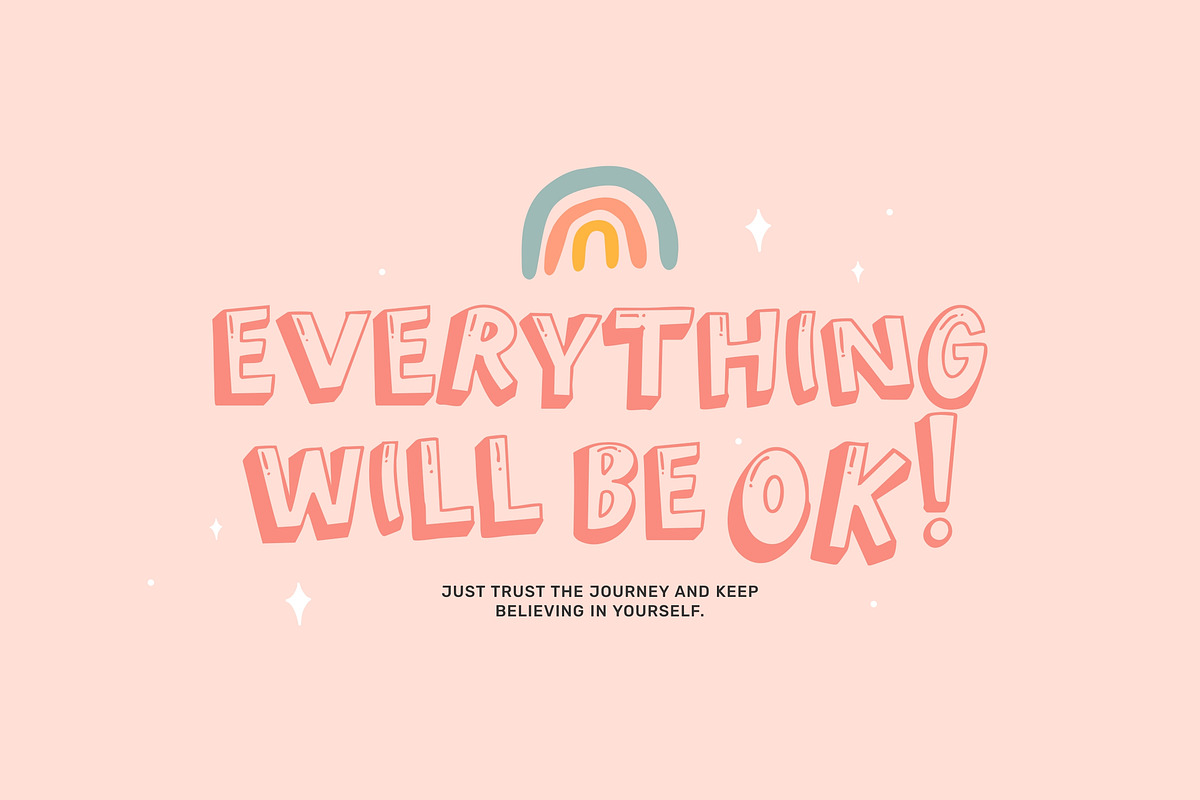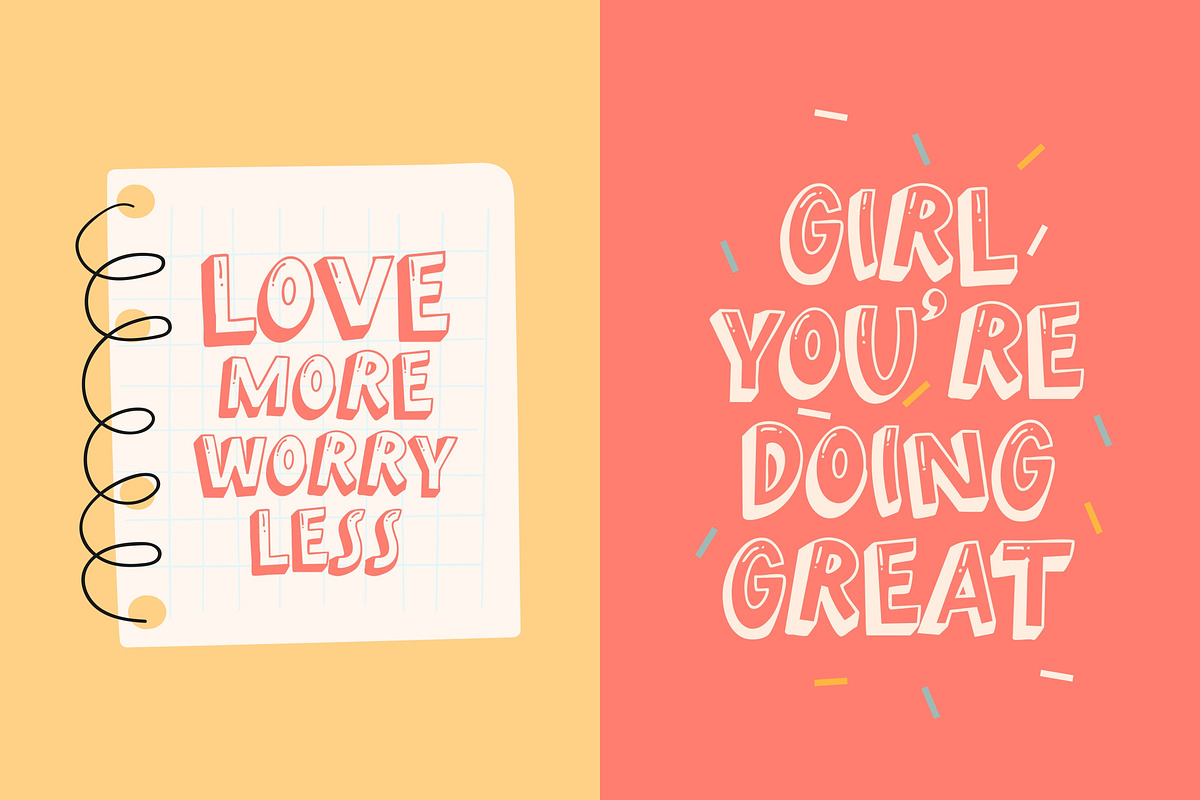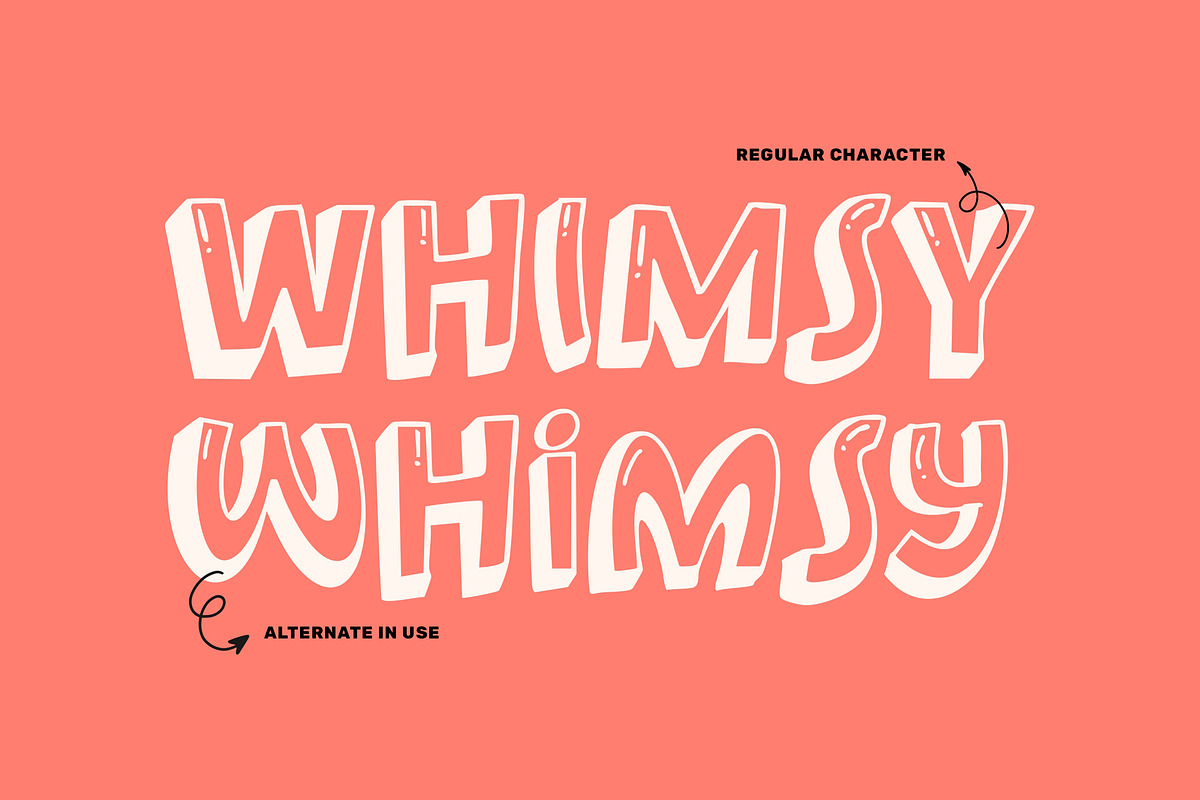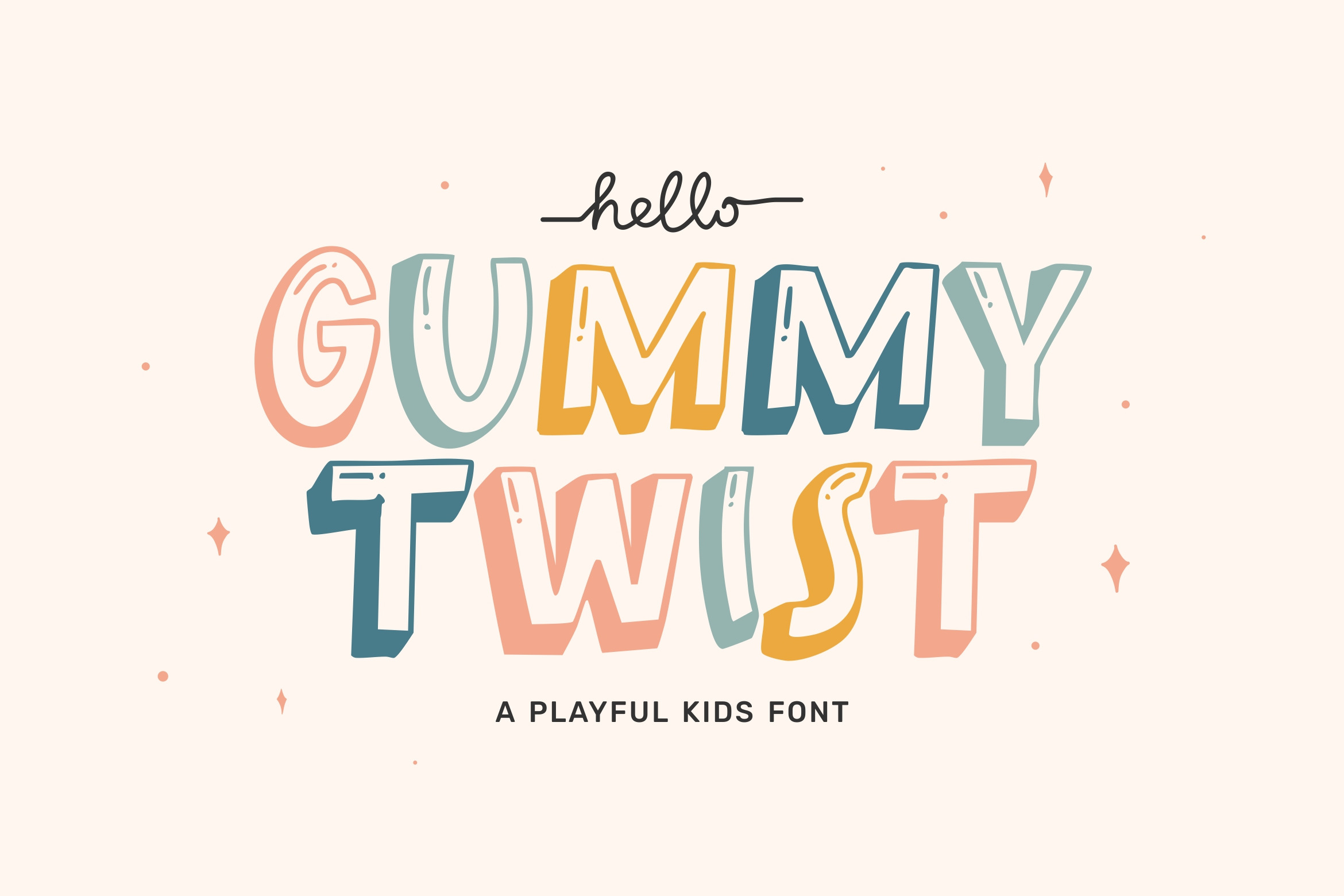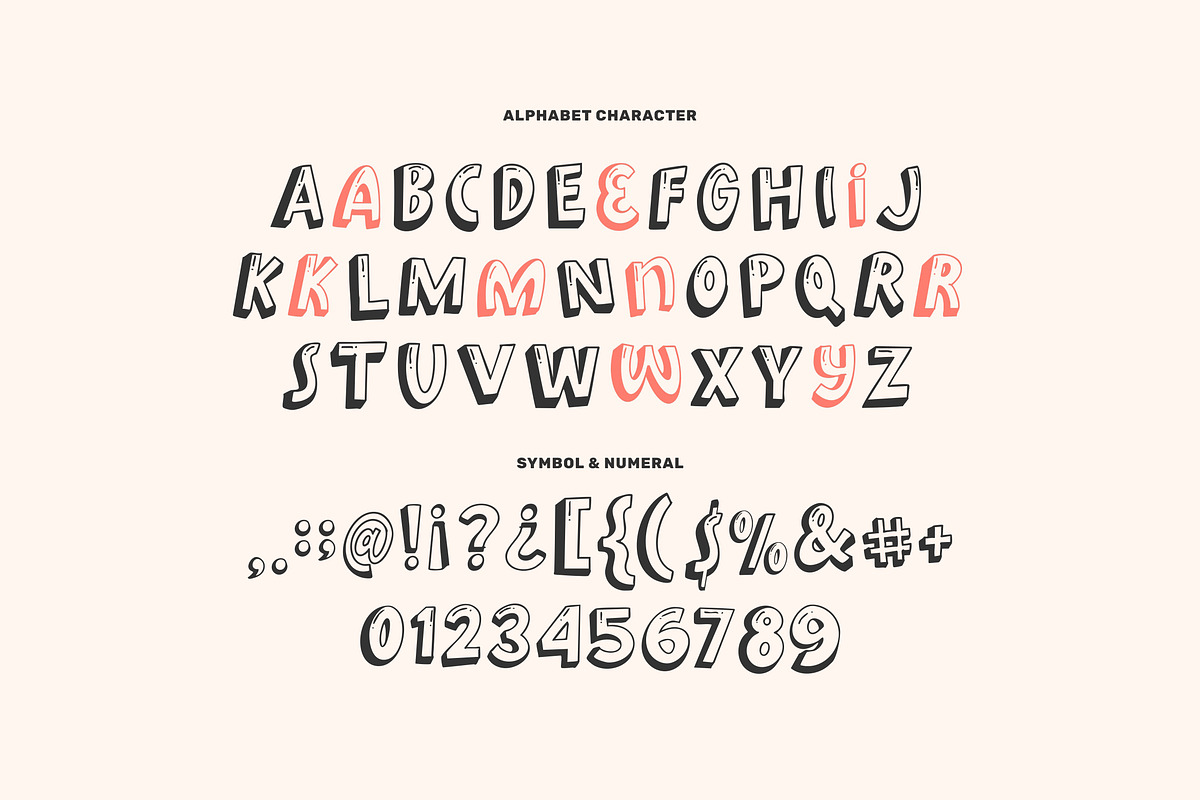
Gummy Twist - 3D Playful Kids Font
GUMMY TWIST is a vibrant and playful font specifically designed for children's projects. Each letter are varied in size and orientation, with some letters tilting slightly to one side, adding a dynamic and fun element to the overall design. This font also includes subtle details like shading and highlights, like three-dimensional effect.
GUMMY TWIST contribute to a cheerful and motivational atmosphere, making it ideal for books, advertisements, advertising, branding, posters, banners, product designs, art quotes, stickers, mugs, special events, product packaging or any kid-focused content.